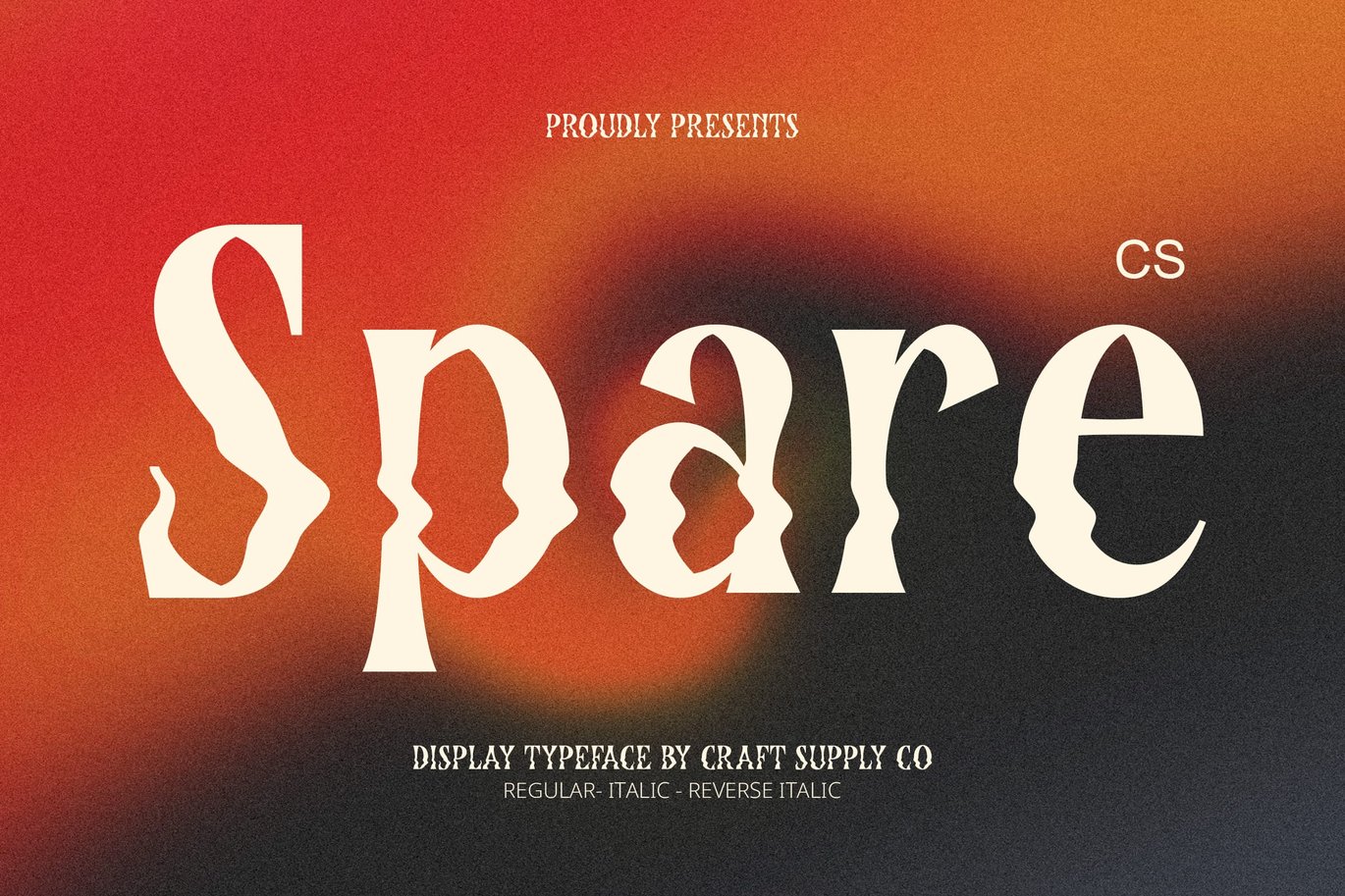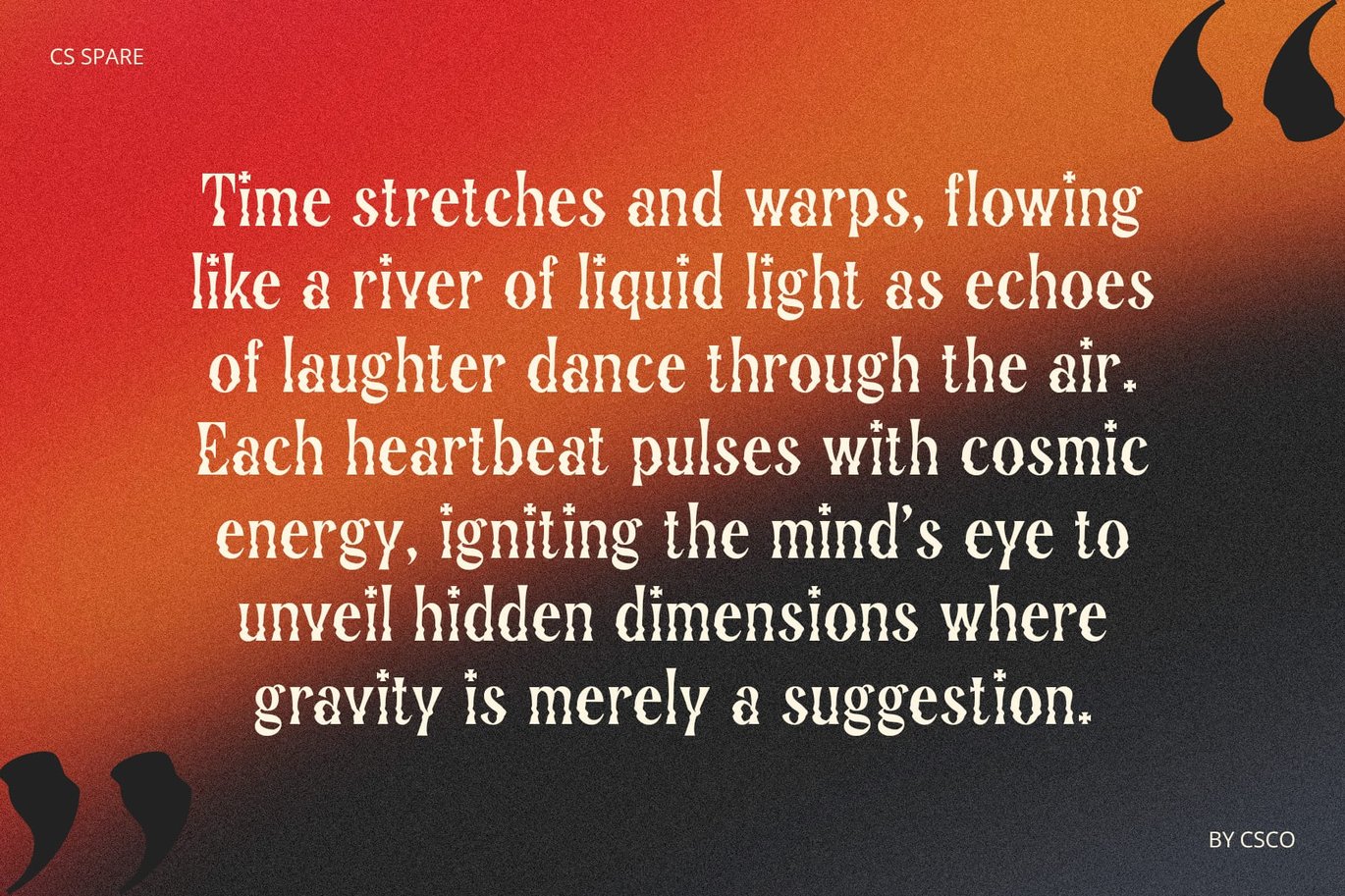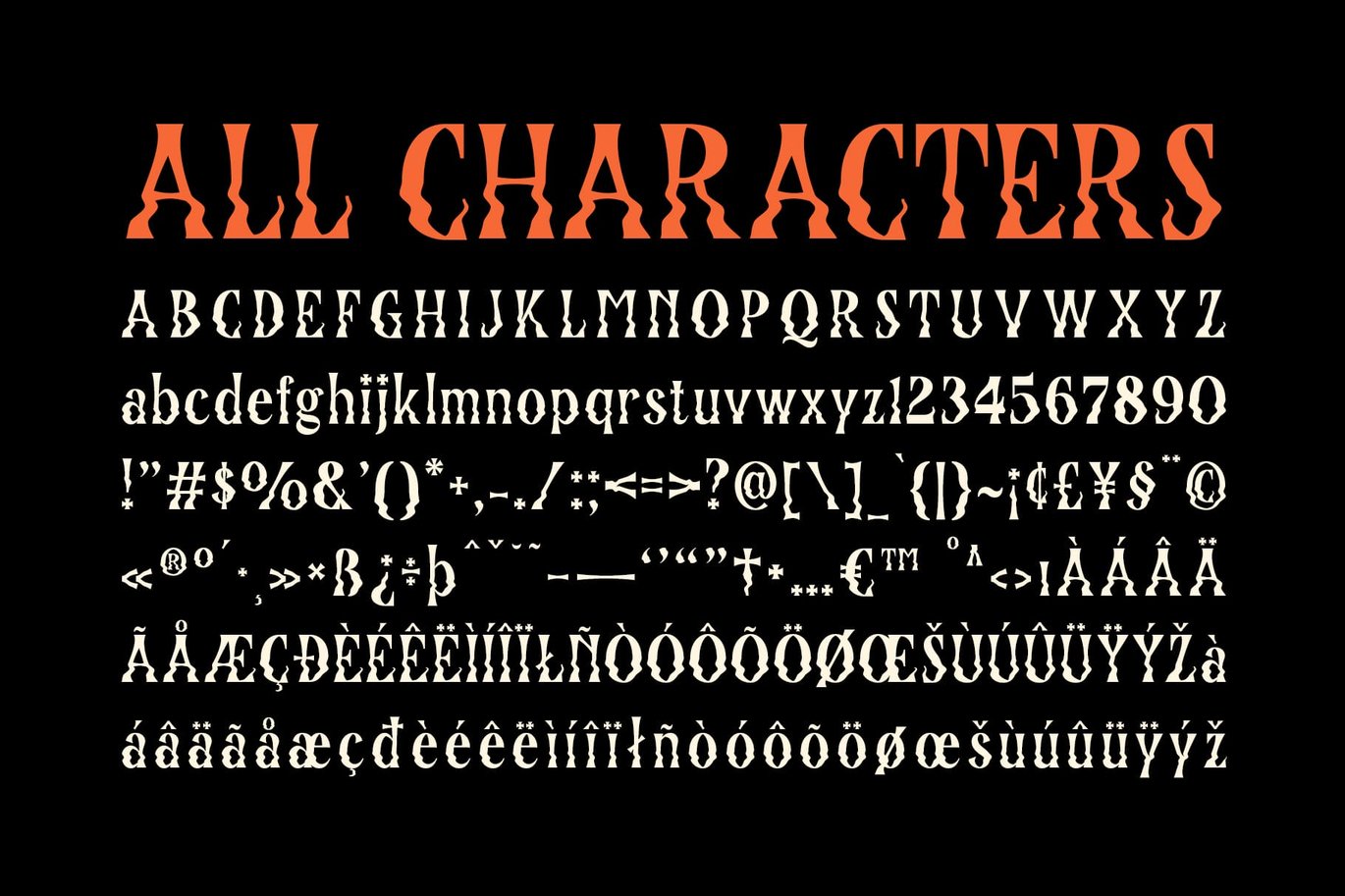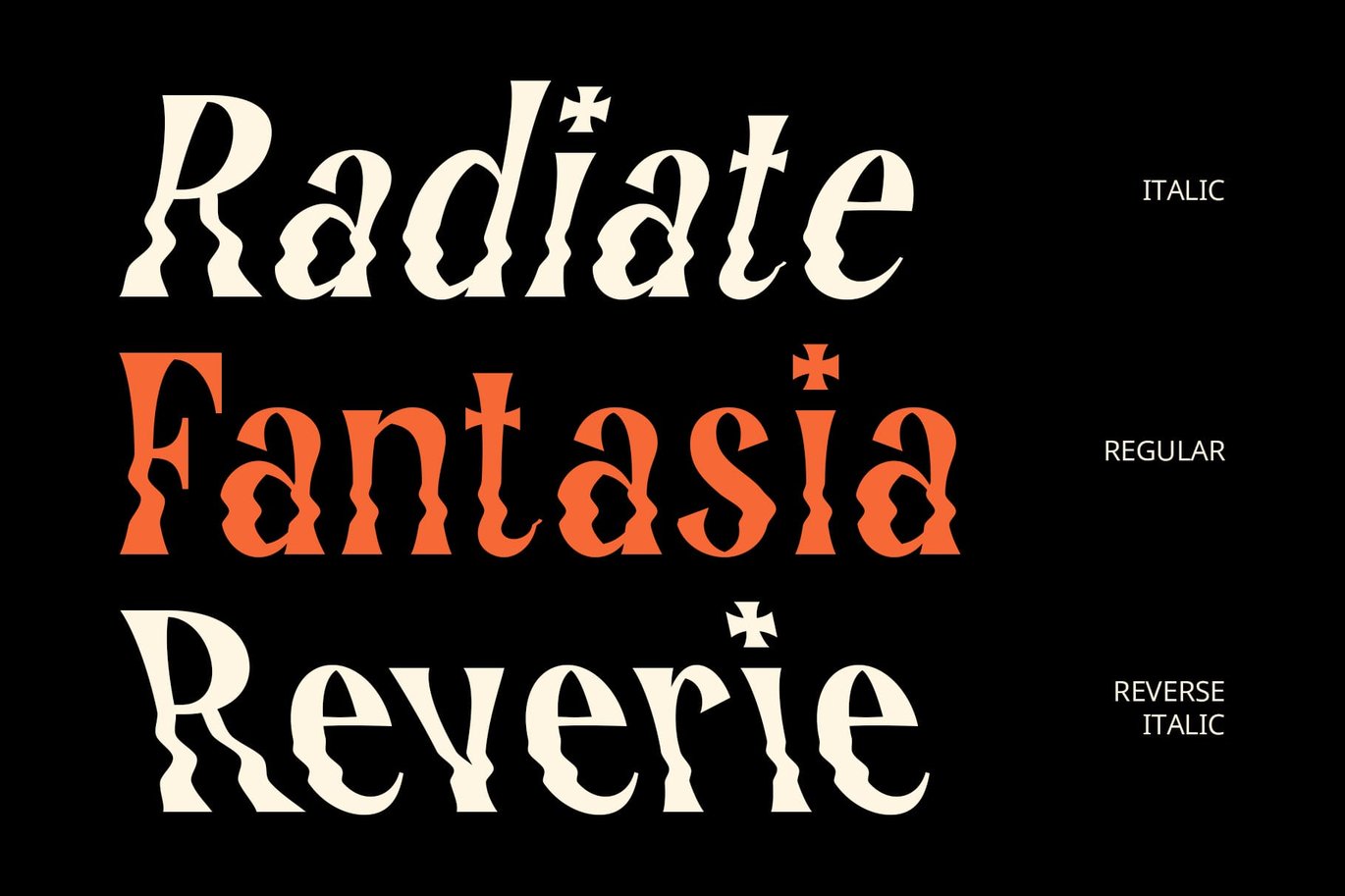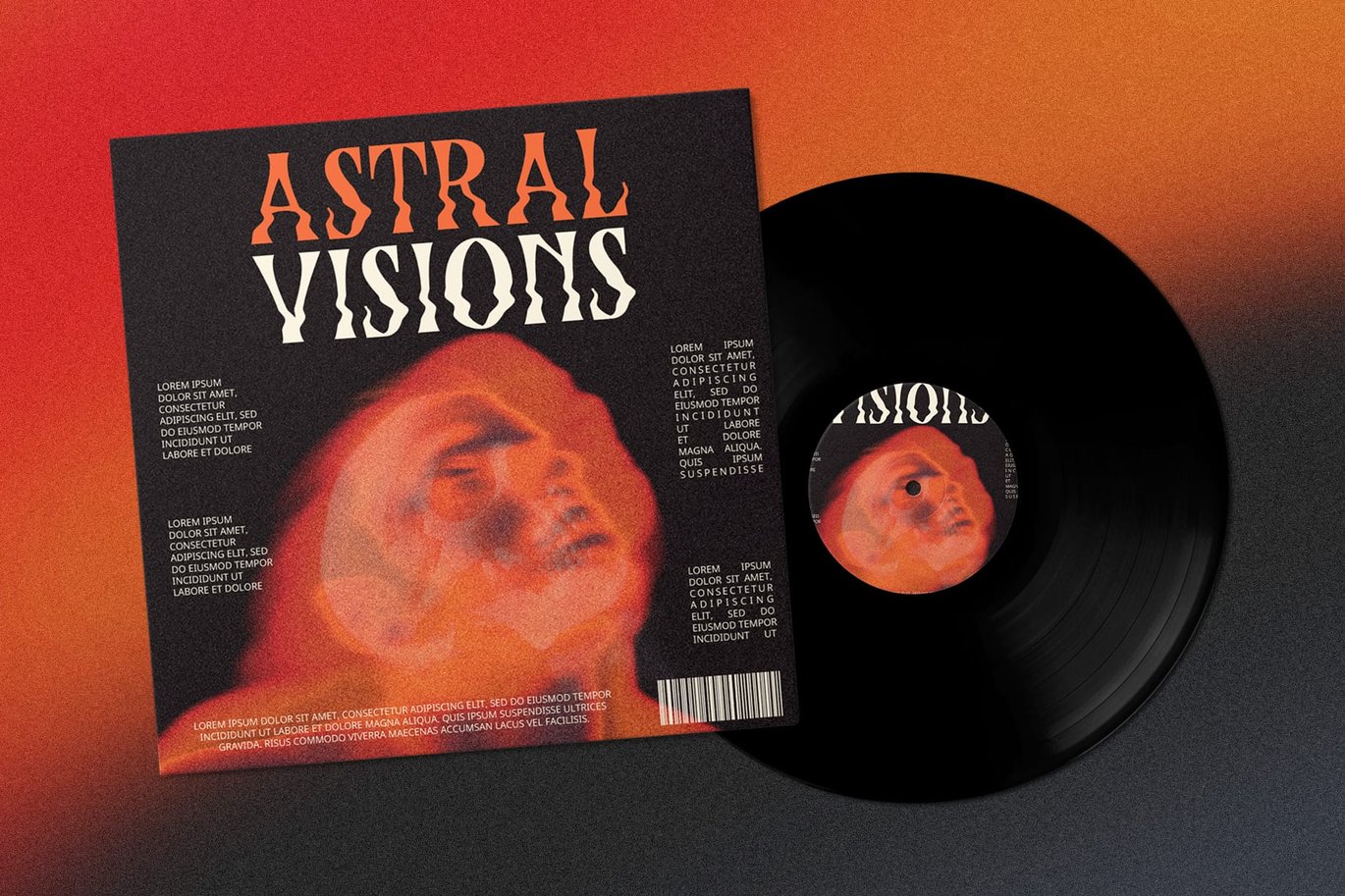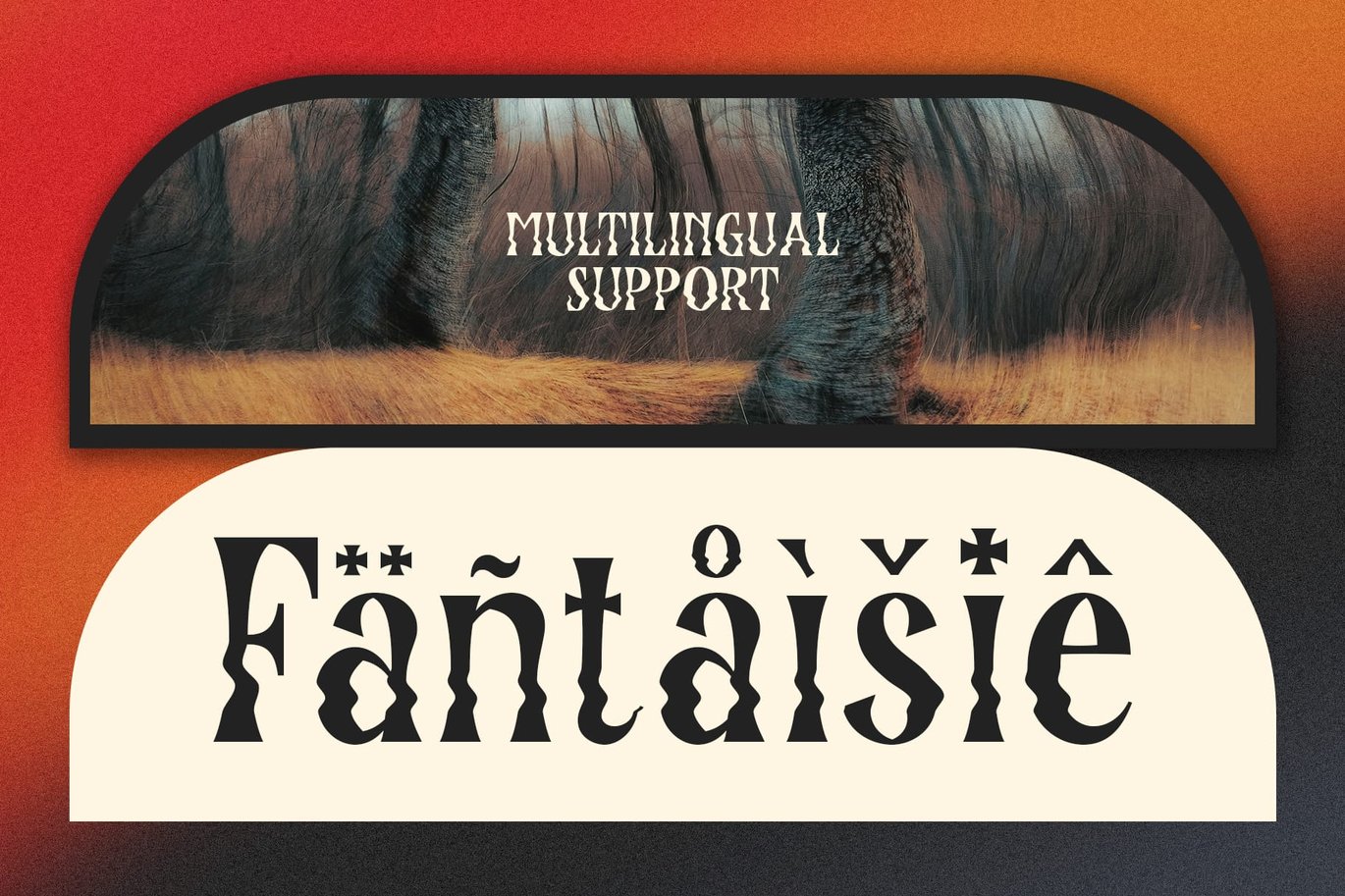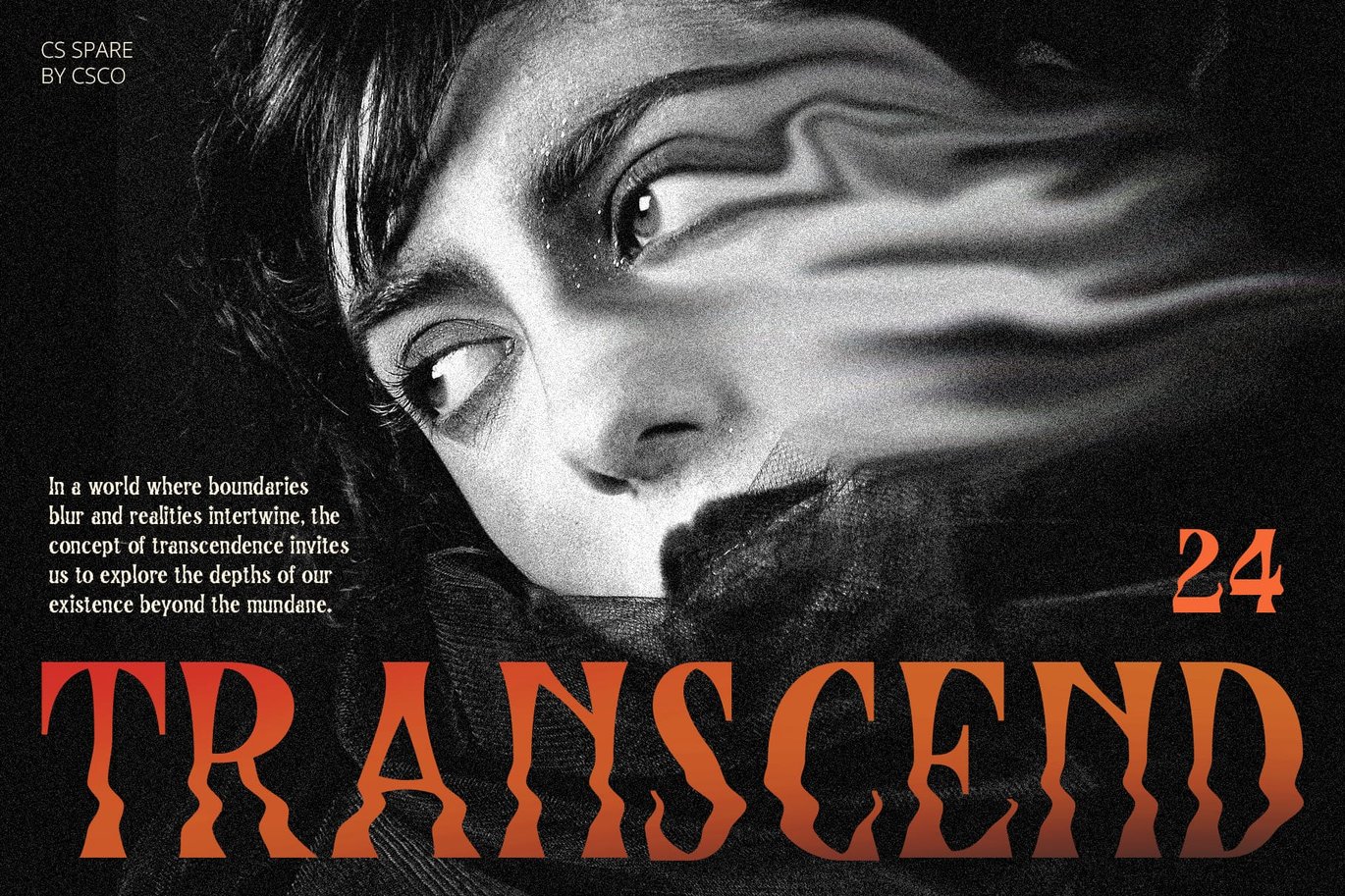
Spare – Psychedelic Font
CS Spare Font – A Psychedelic Celebration of Creativity
Dynamic Design with Swirling Letterforms
CS Spare is a captivating psychedelic display font that features unique, swirling letterforms, creating an enchanting sense of movement and creativity. Each character flows seamlessly into the next, embodying a visual rhythm that captivates the viewer’s eye and draws them into a world of imagination. This design evokes the free-spirited essence of the psychedelic era, making it a perfect choice for projects that embrace artistic expression and individuality.
Vibrant Colors and Playful Shapes
With its vibrant colors and playful shapes, CS Spare radiates a funky vibe that energizes any design. The font’s bold and expressive nature allows for an explosion of creativity, making it ideal for projects that require a pop of color and a dash of fun. Whether you’re designing promotional materials for a lively event or crafting visuals for an art project, this font enhances the overall aesthetic, making your designs unforgettable.
Perfect for Music Events and Artistic Endeavors
CS Spare is particularly well-suited for music events, art festivals, and any project that celebrates creativity and self-expression. Its unique letterforms and lively character bring a joyful energy that resonates with audiences, making it an excellent choice for album covers, concert posters, and promotional graphics. This font embodies the spirit of individuality, encouraging users to embrace their creativity and stand out from the crowd.